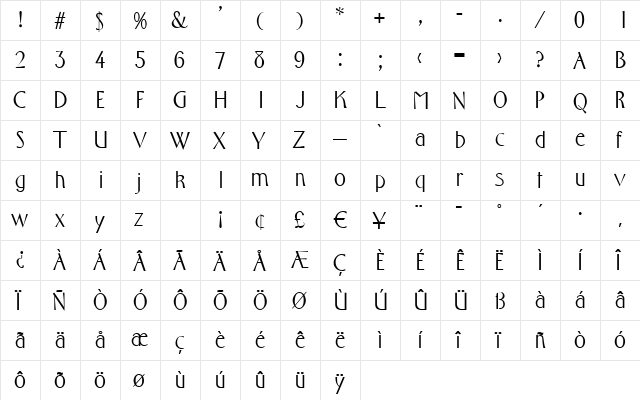
MonicaBecker Regular
Design Context for MonicaBecker Typeface
MonicaBecker takes a measured approach to typography — its balanced proportions and neutral character make it a reliable workhorse for both digital and print work.